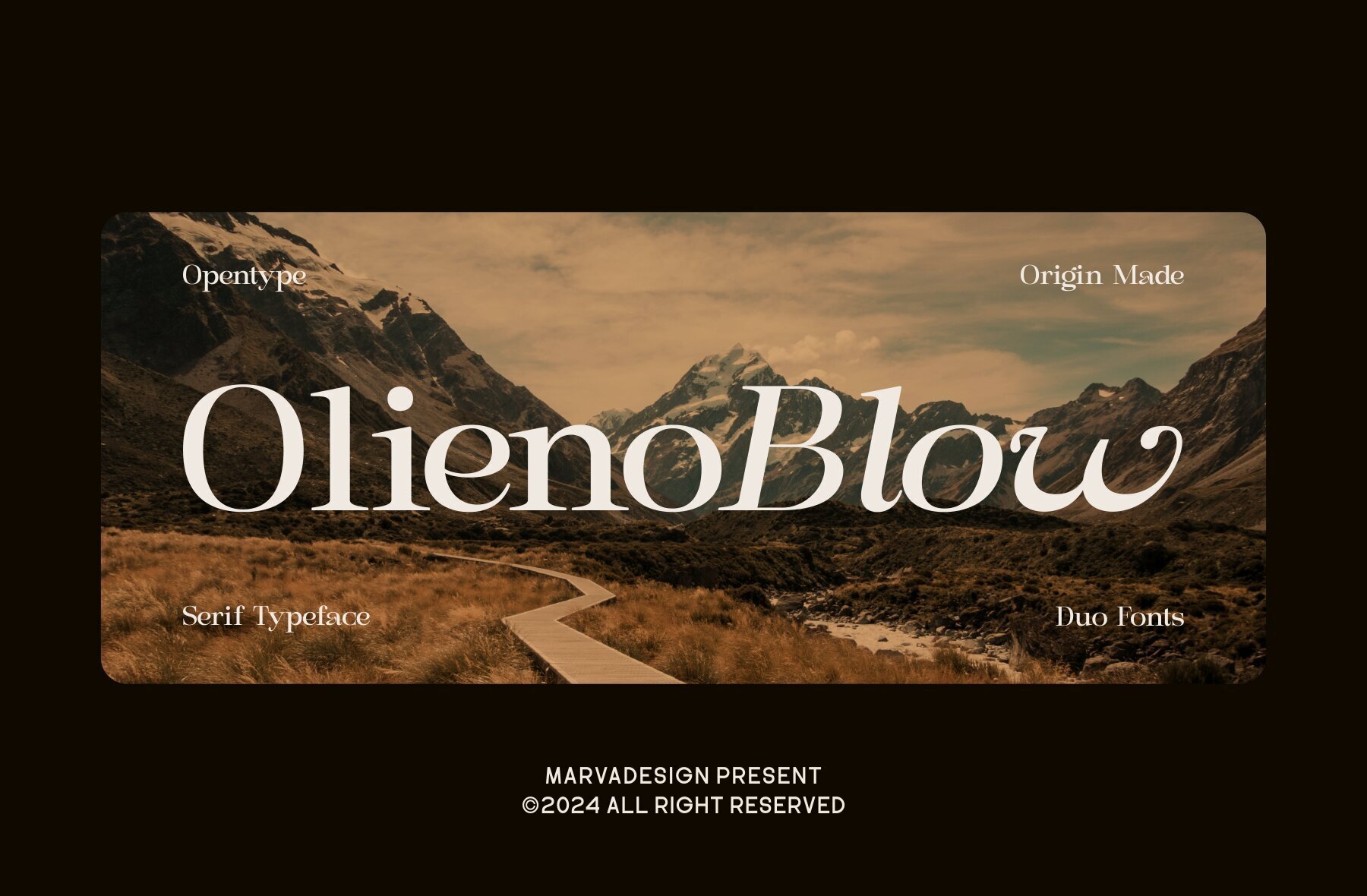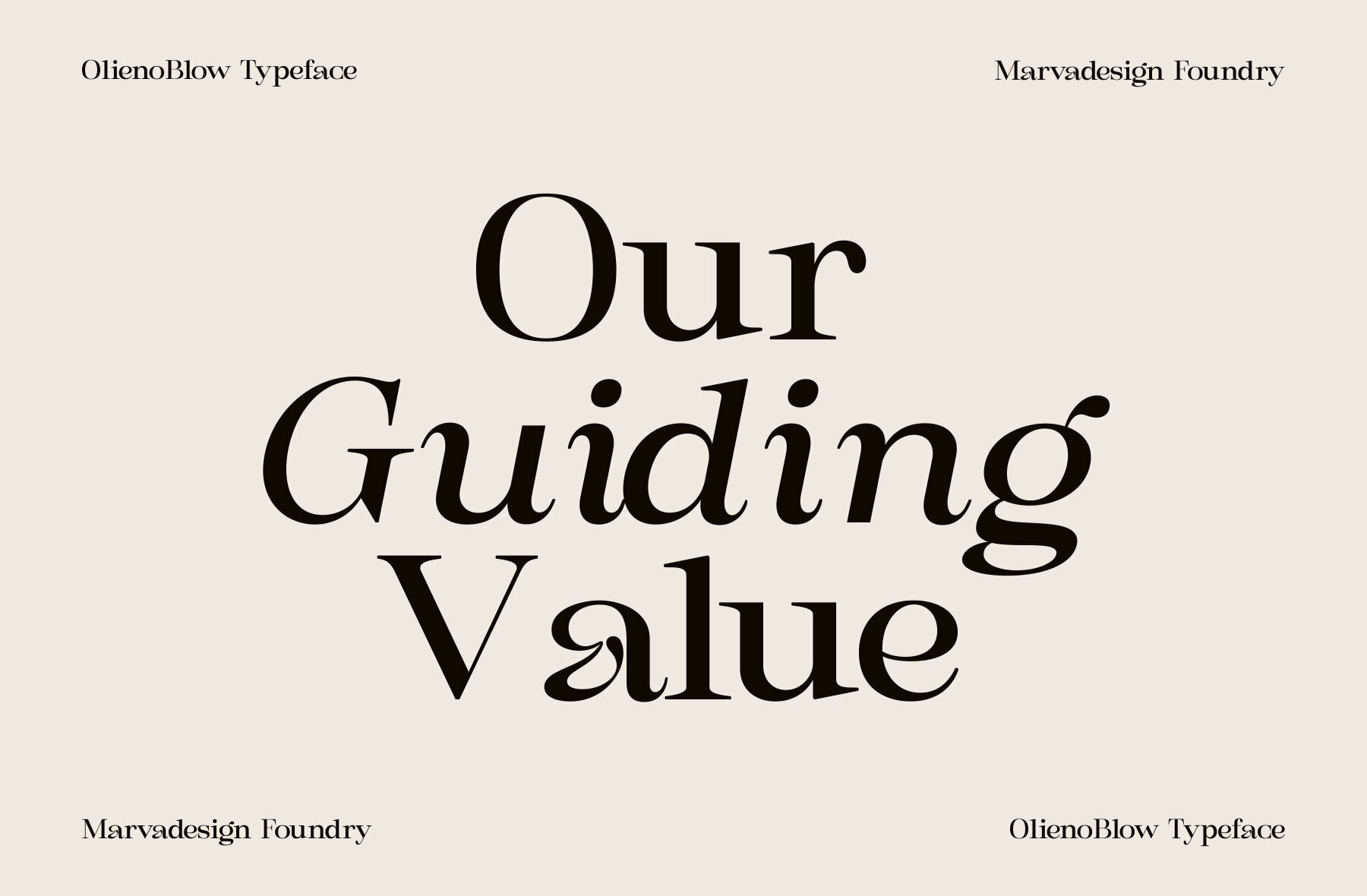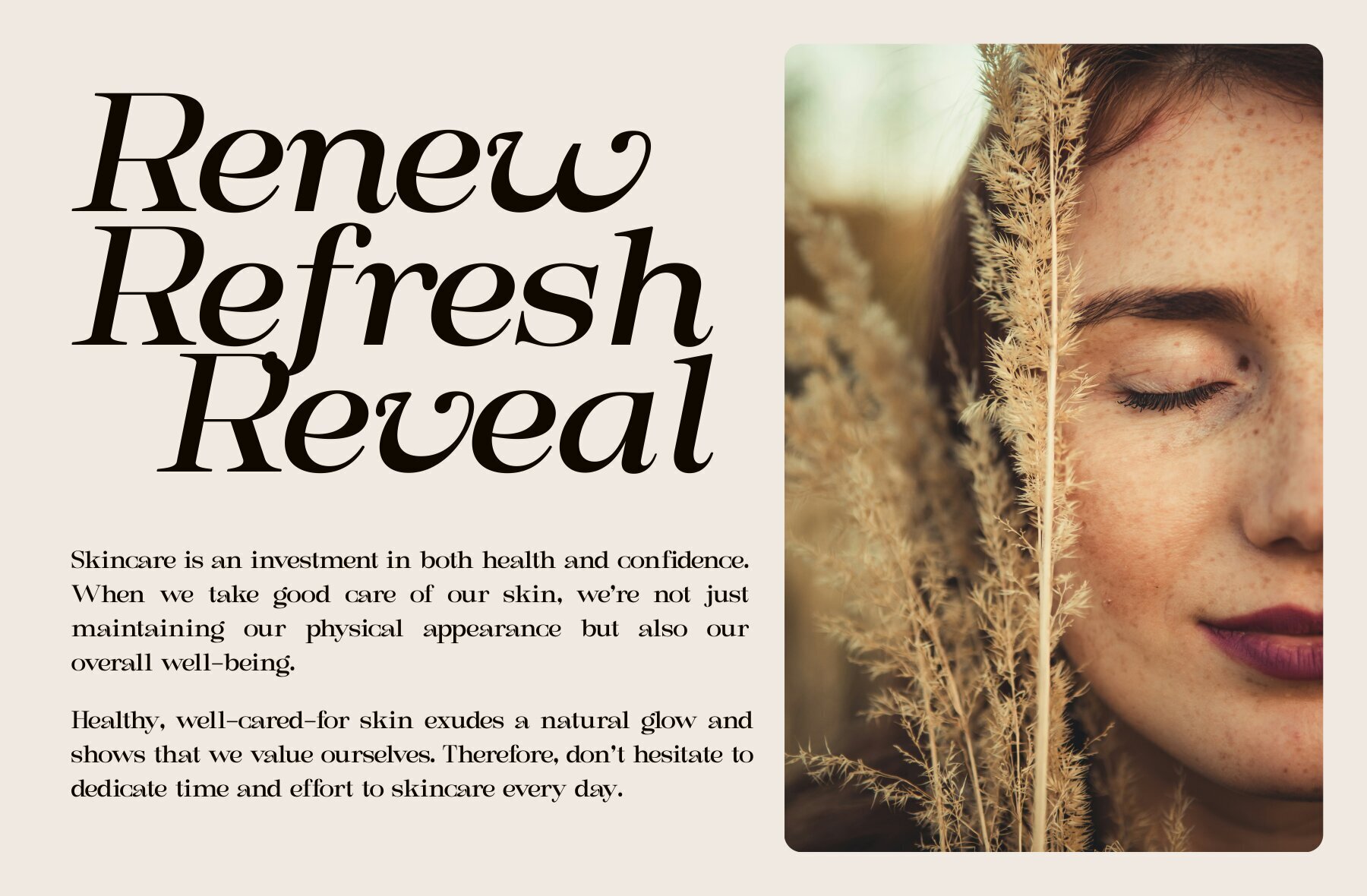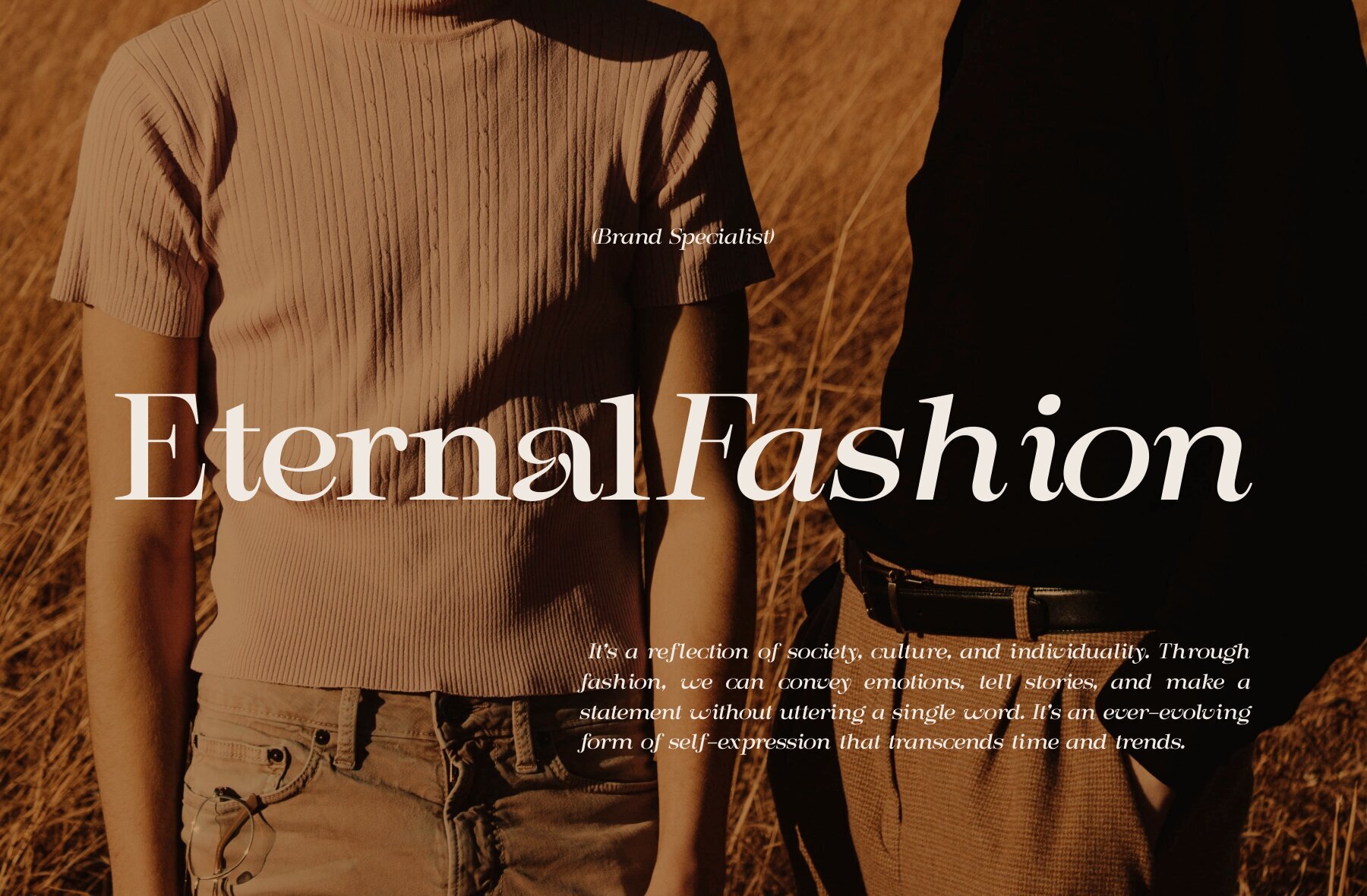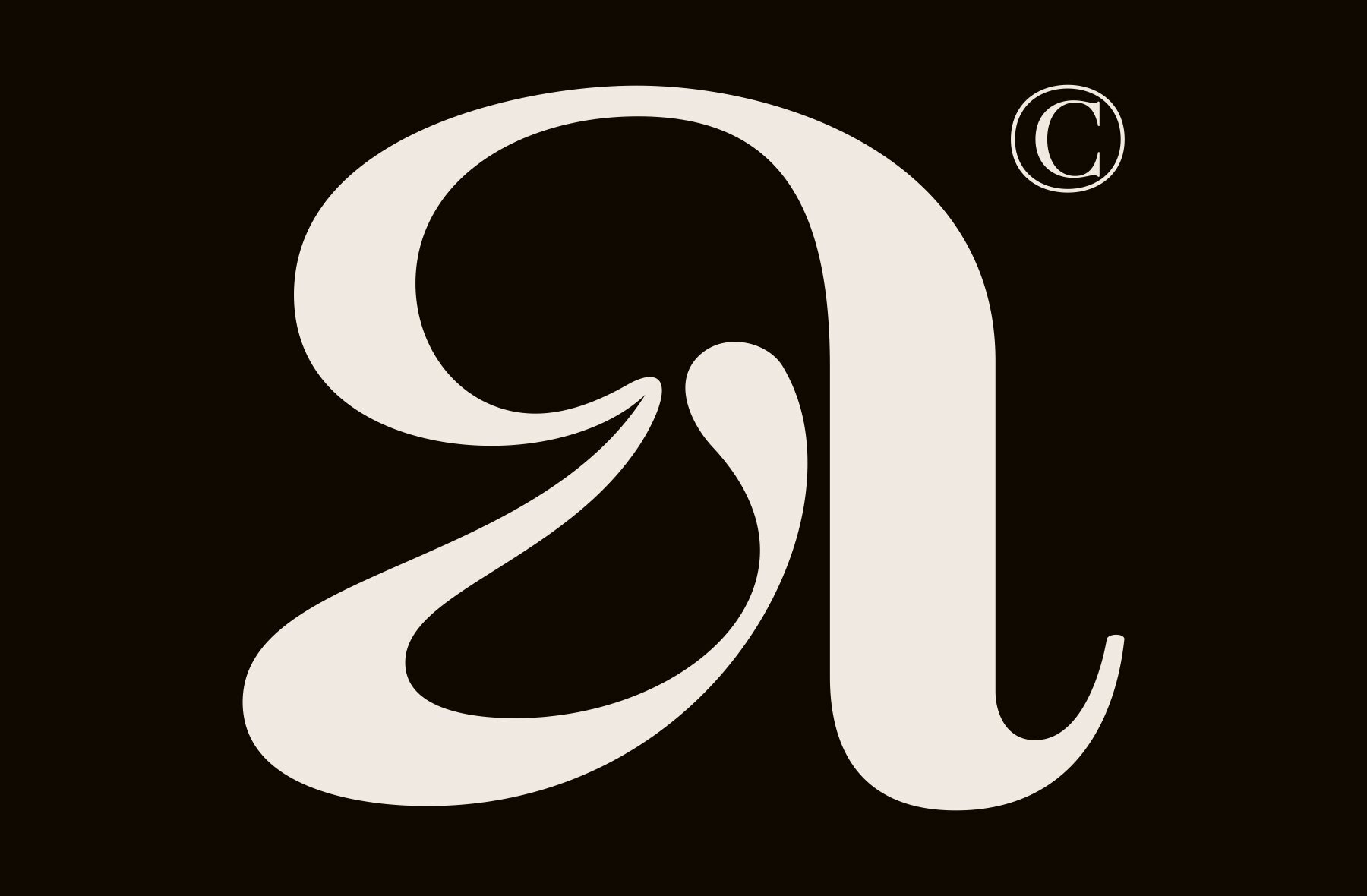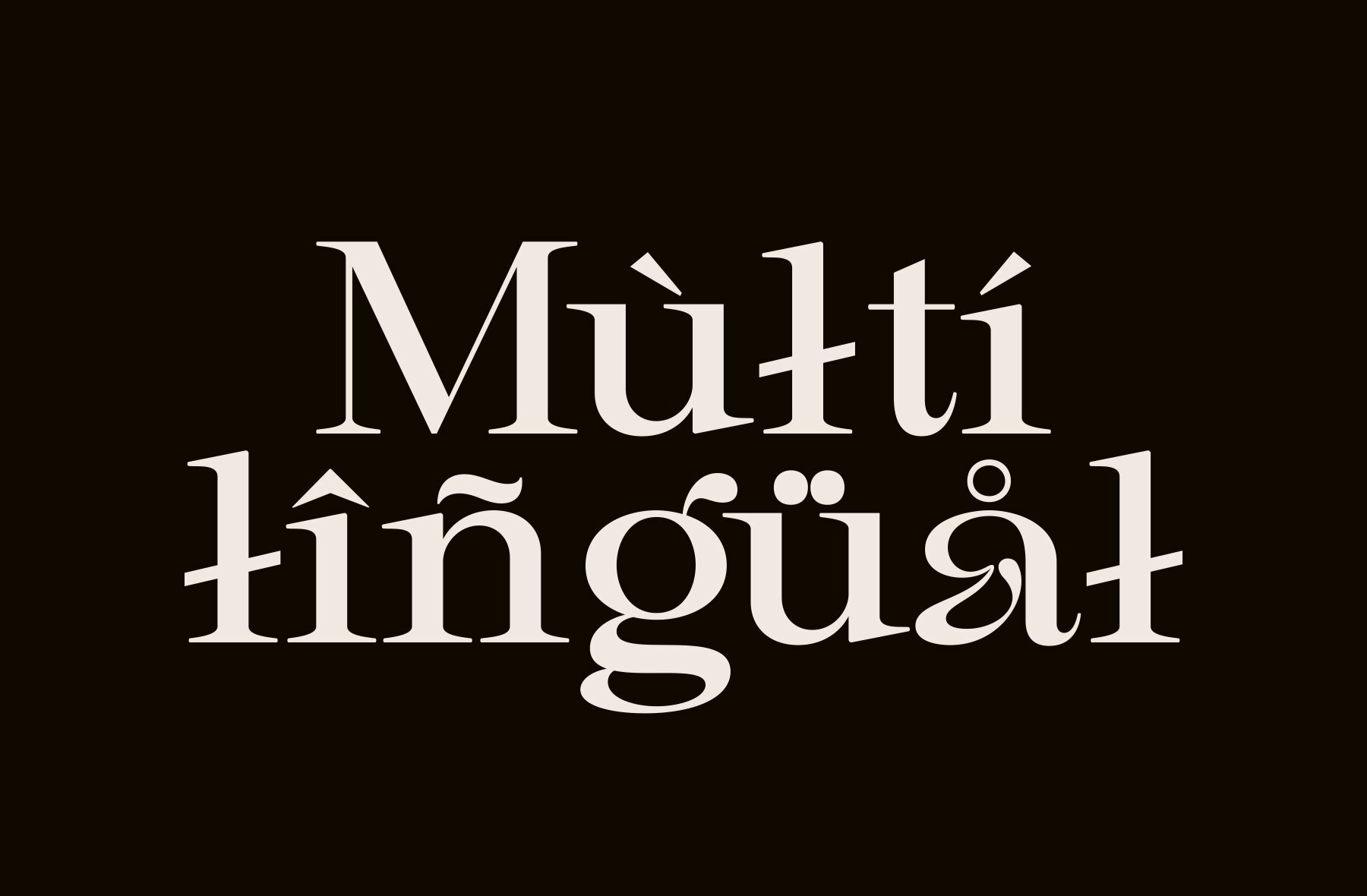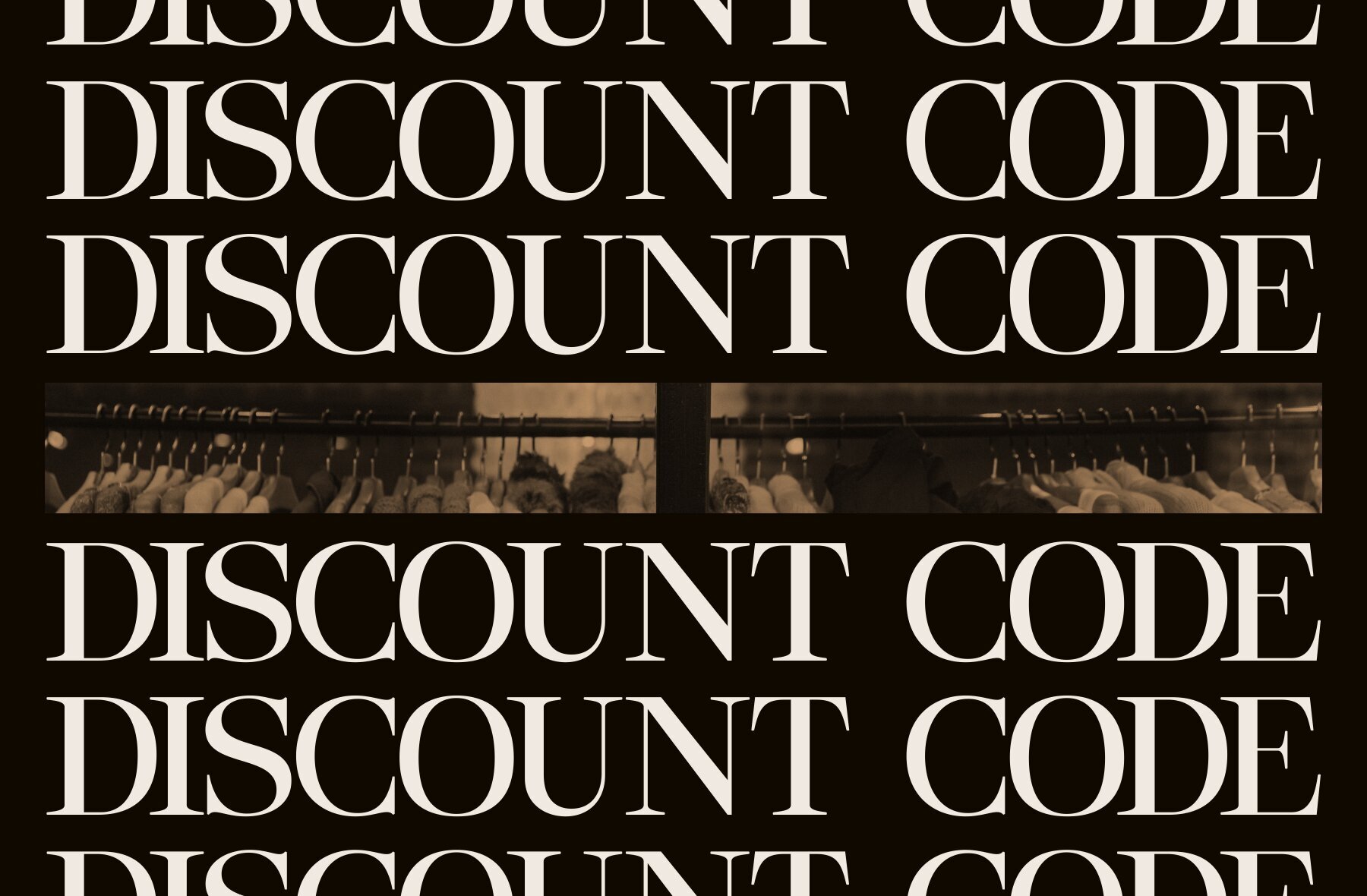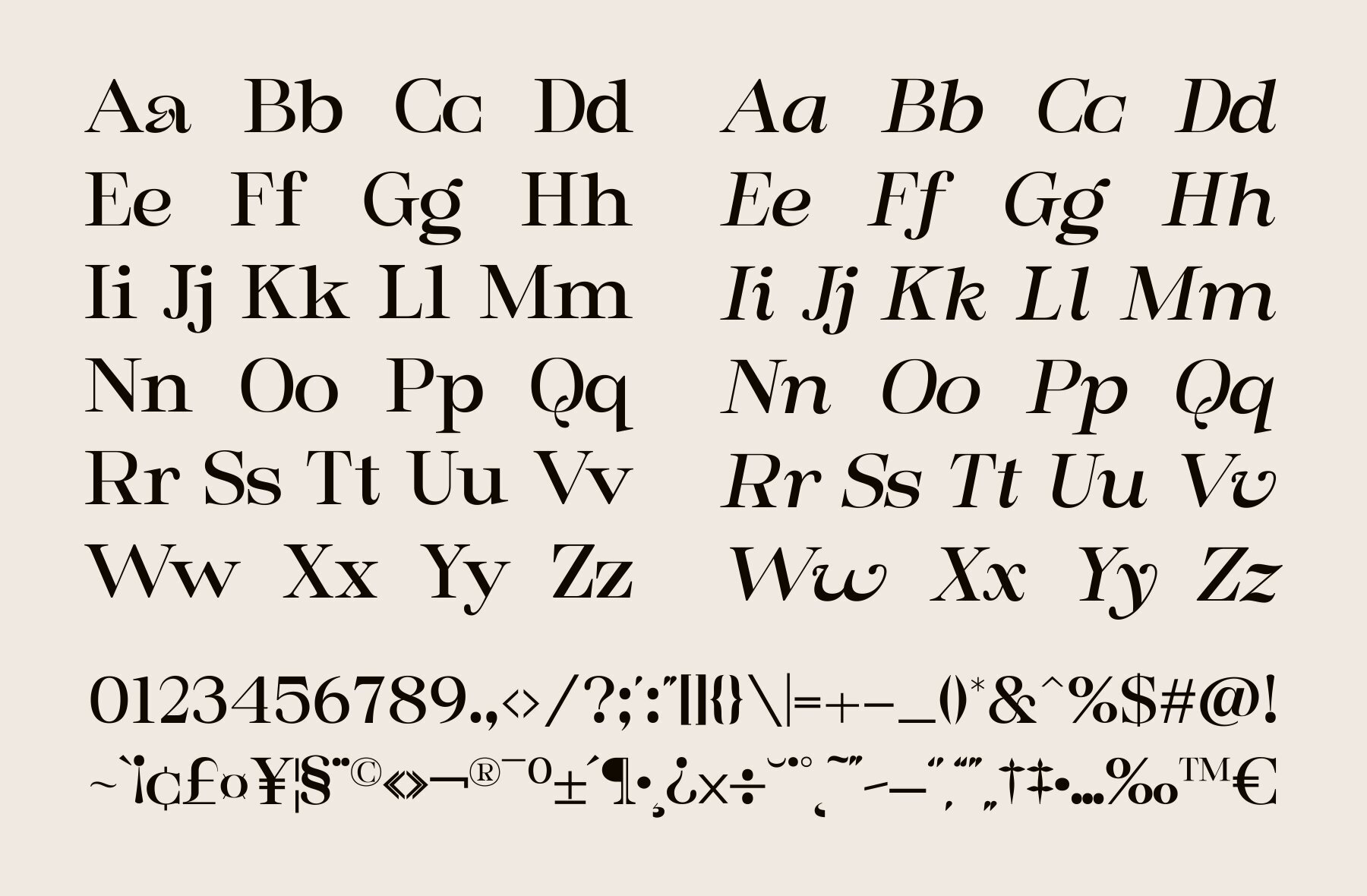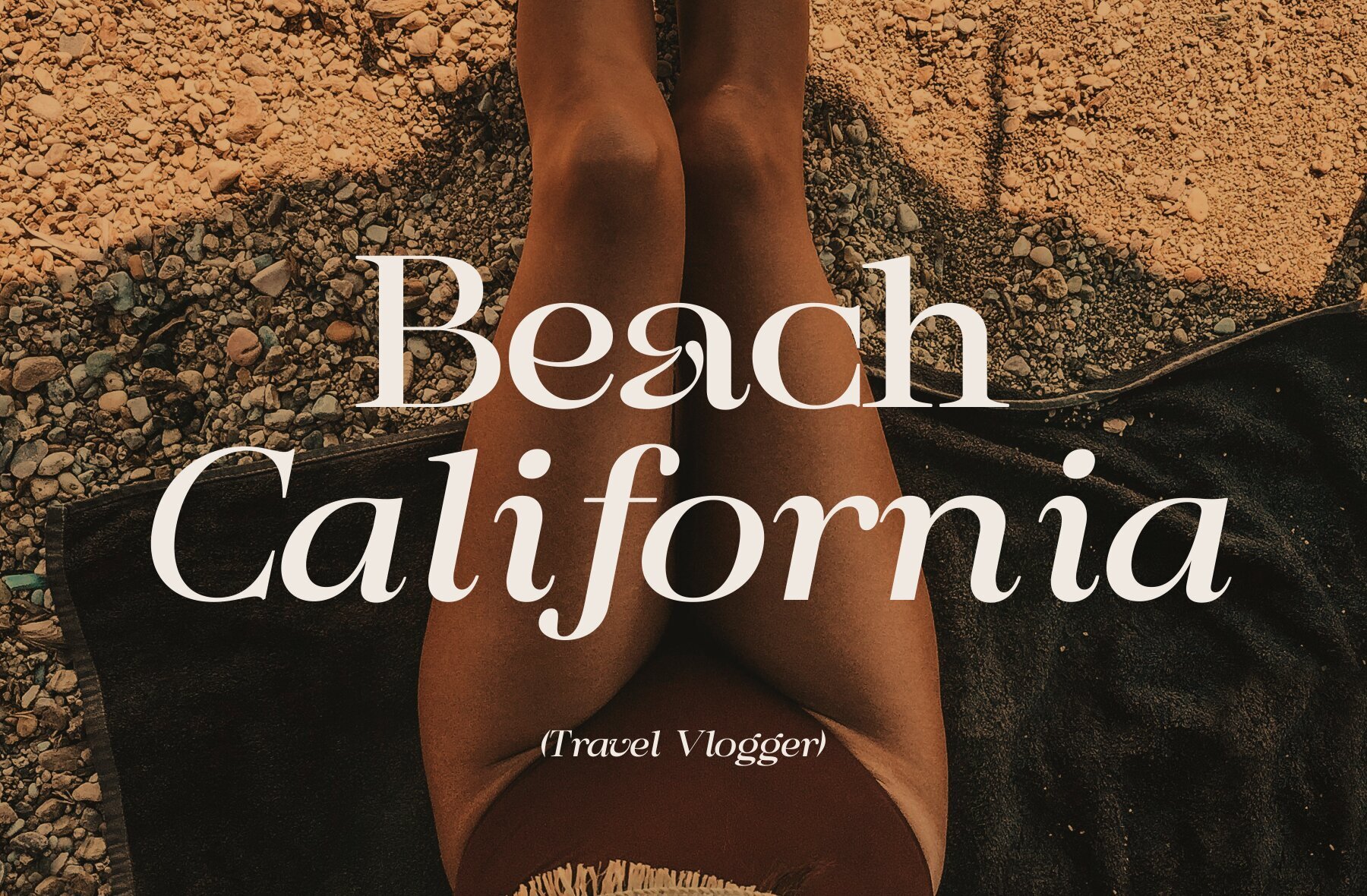
Olieno Blow Font
Olieno Blow regular has an upright appearance with often overlapping ends. The vertical lines are upright and consistent, while the horizontal lines are soft and tend to curve. This font displays a formal and classic impression with a slight modern touch. Olieno Blow italic has a slant added to each letter, giving it an elegant feel and moving towards the top right. This slant gives the font a bit of a dynamic and artistic touch, but still maintains elegance and beauty. Serif fonts with regular and italic styles like this are very suitable for designs that require a formal impression, such as invitations, promotional materials, or official documents. With a combination of regular and italic, this font provides flexibility in expressing messages in an elegant and classic style.